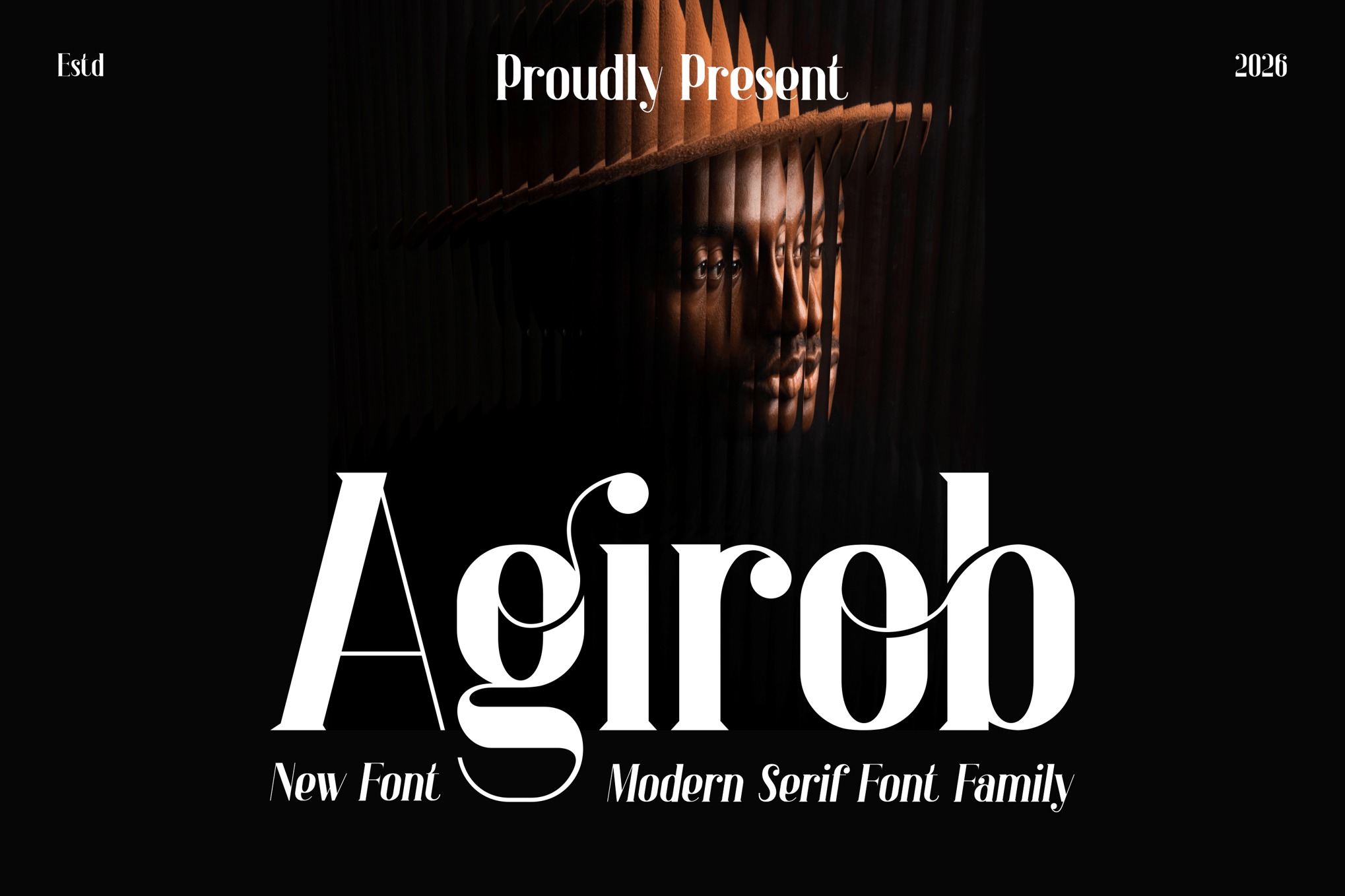
Agirob – Modern Serif Font
Agirob – Modern Serif Font is a professionally designed typeface that delivers clarity, structure, and consistent performance across various design applications. Agirob is a super thick typeface with more traditional letter shapes, making it perfect for creating (or recreating) the concise look of film poster production credits.